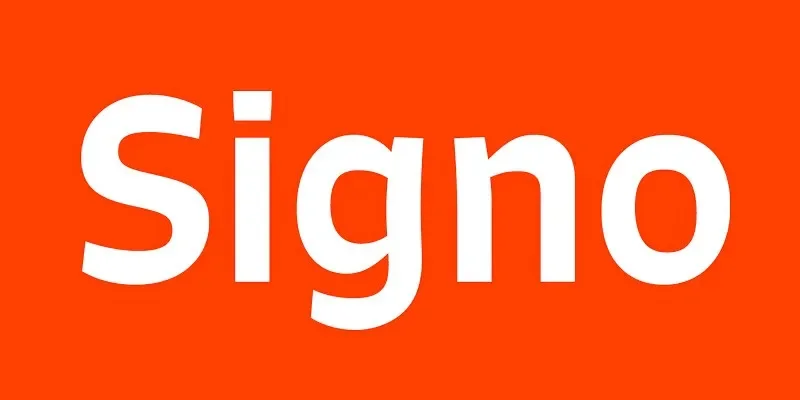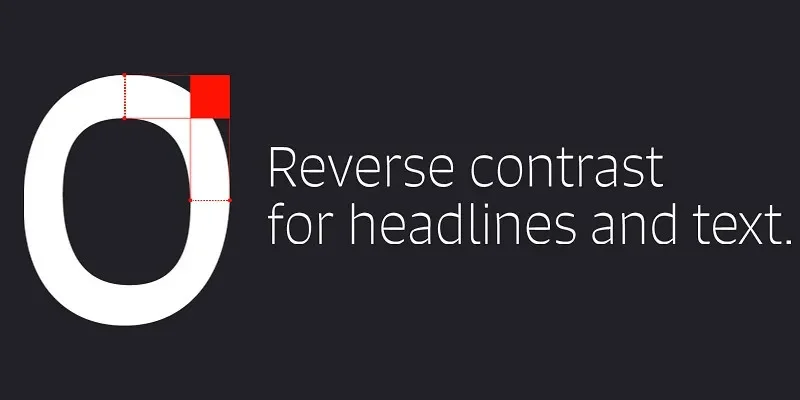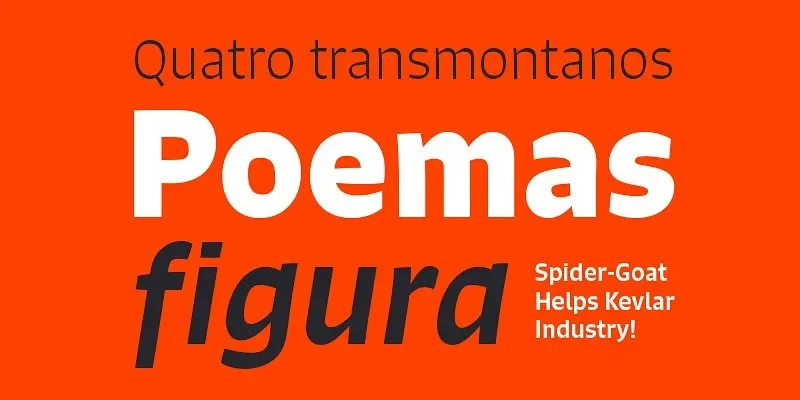
Signo Font Family helps solve spacing and readability issues in editorial and web layouts where text must remain clear across different screen sizes. Designers rely on font families like this to maintain consistent typography systems.
Signo Font Family is a sans-serif font family with multiple weights and controlled proportions. The letterforms feature clean terminals, moderate x-height, and predictable rhythm, supporting both headlines and supporting text. These characteristics improve readability without decorative distraction.